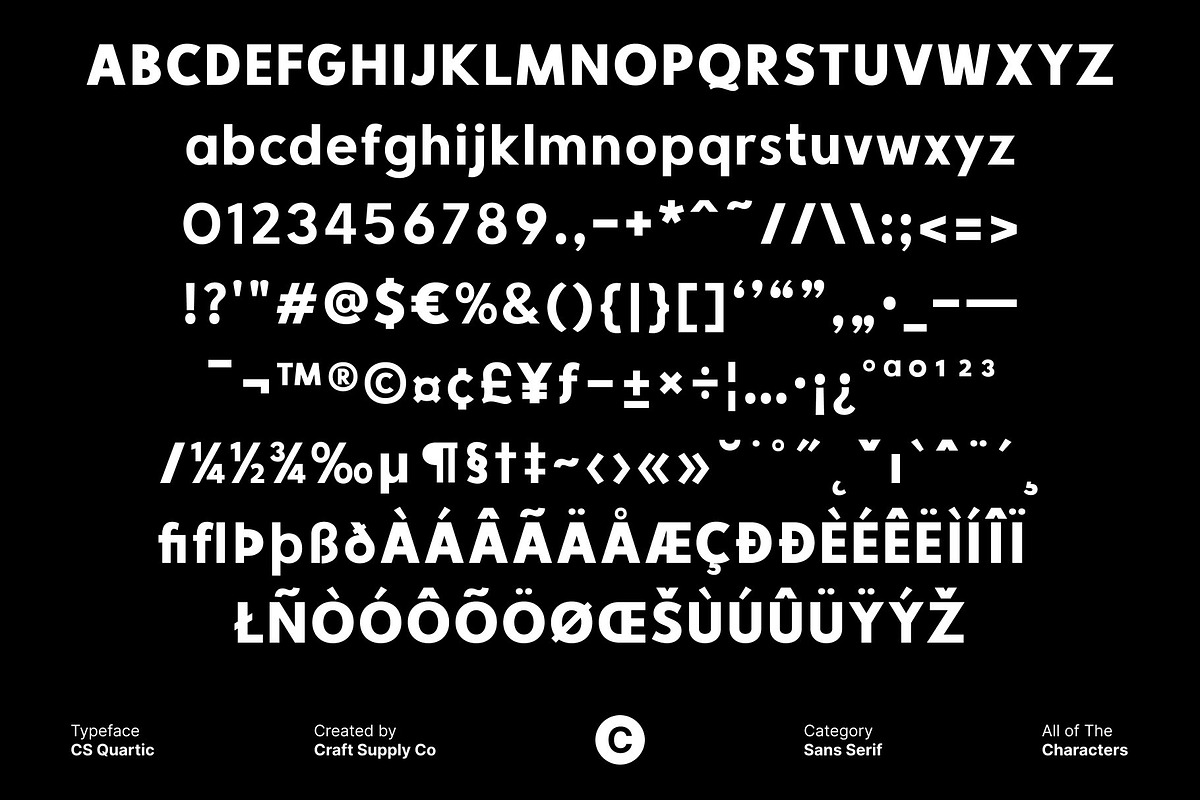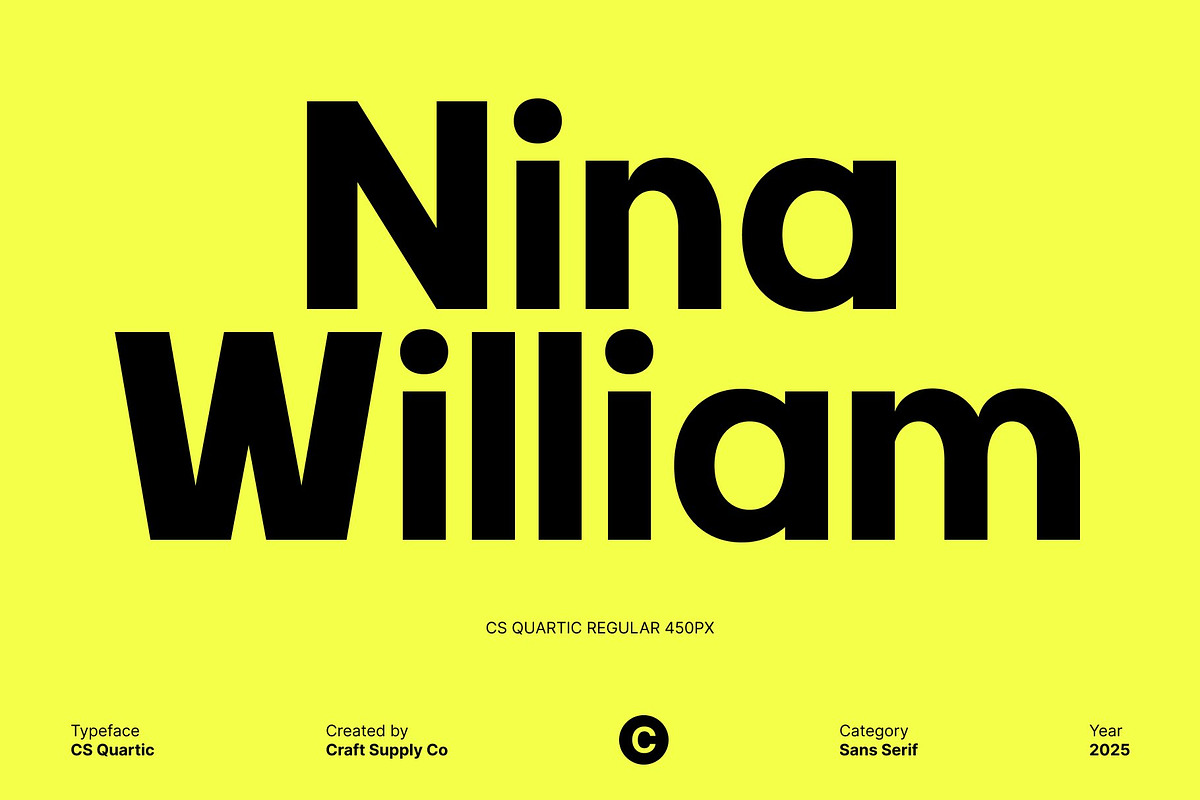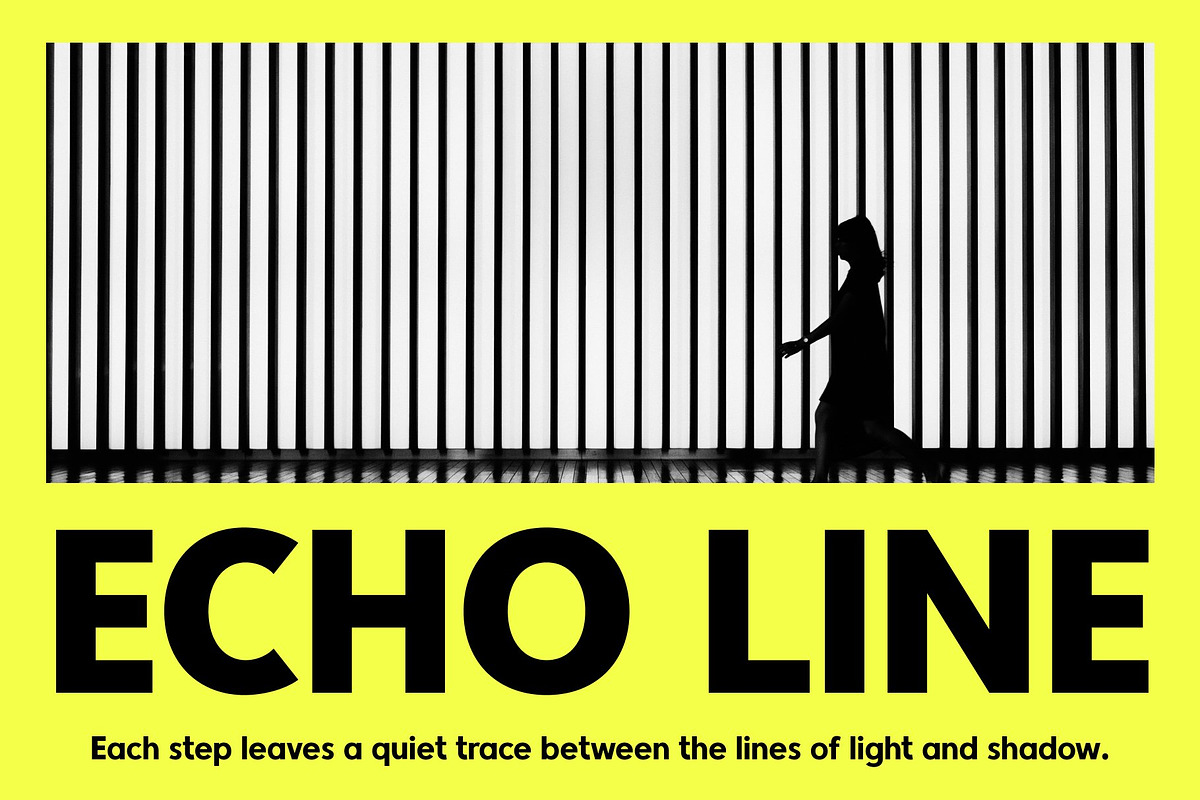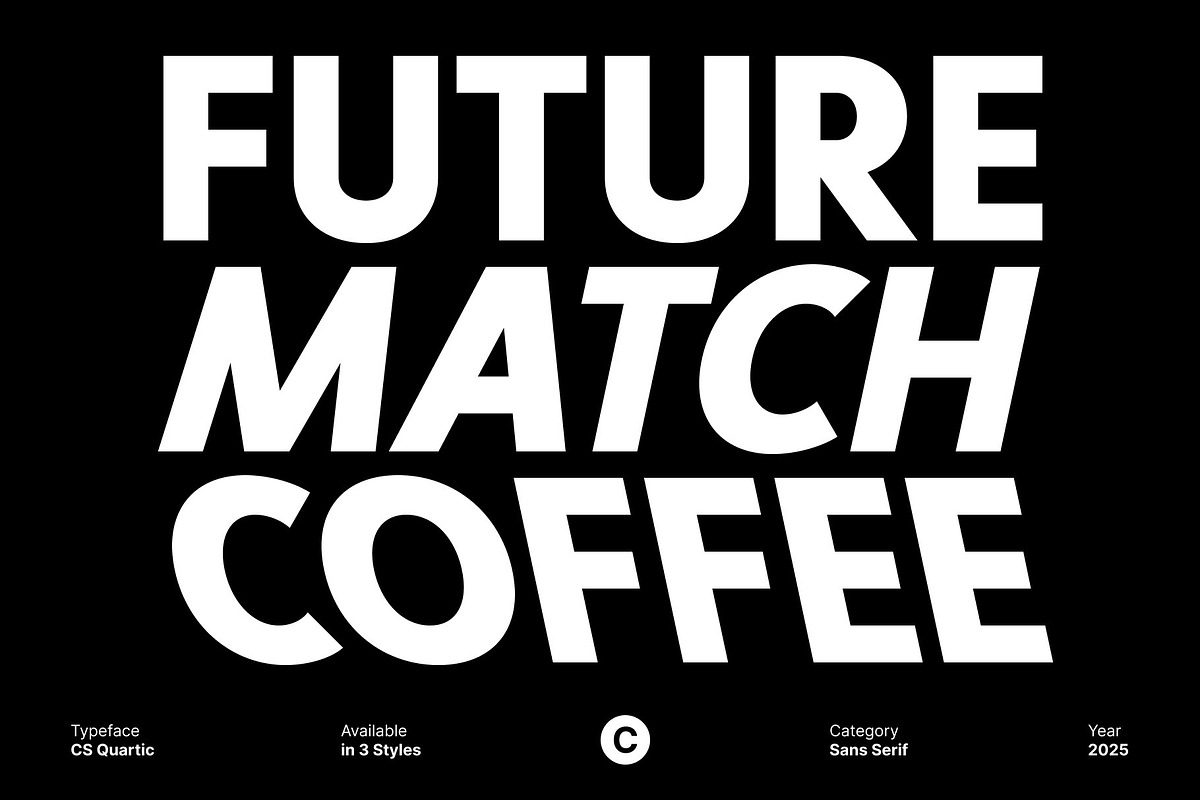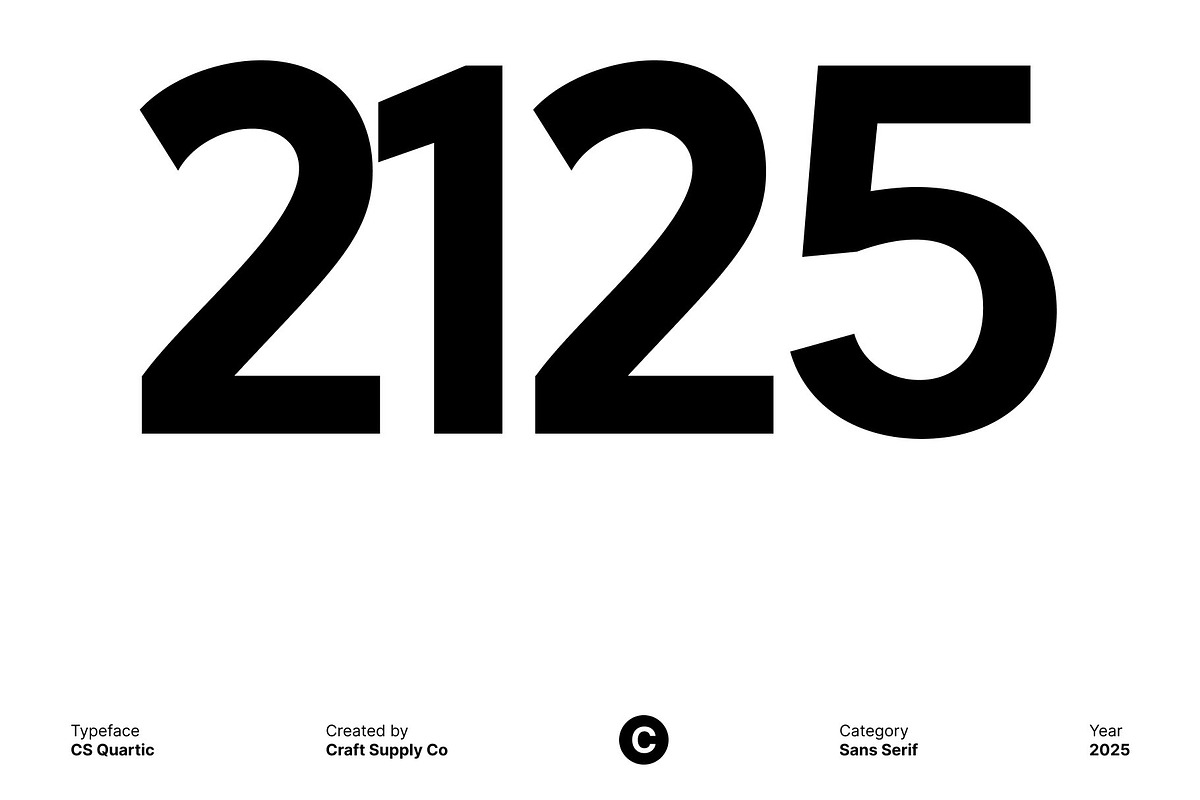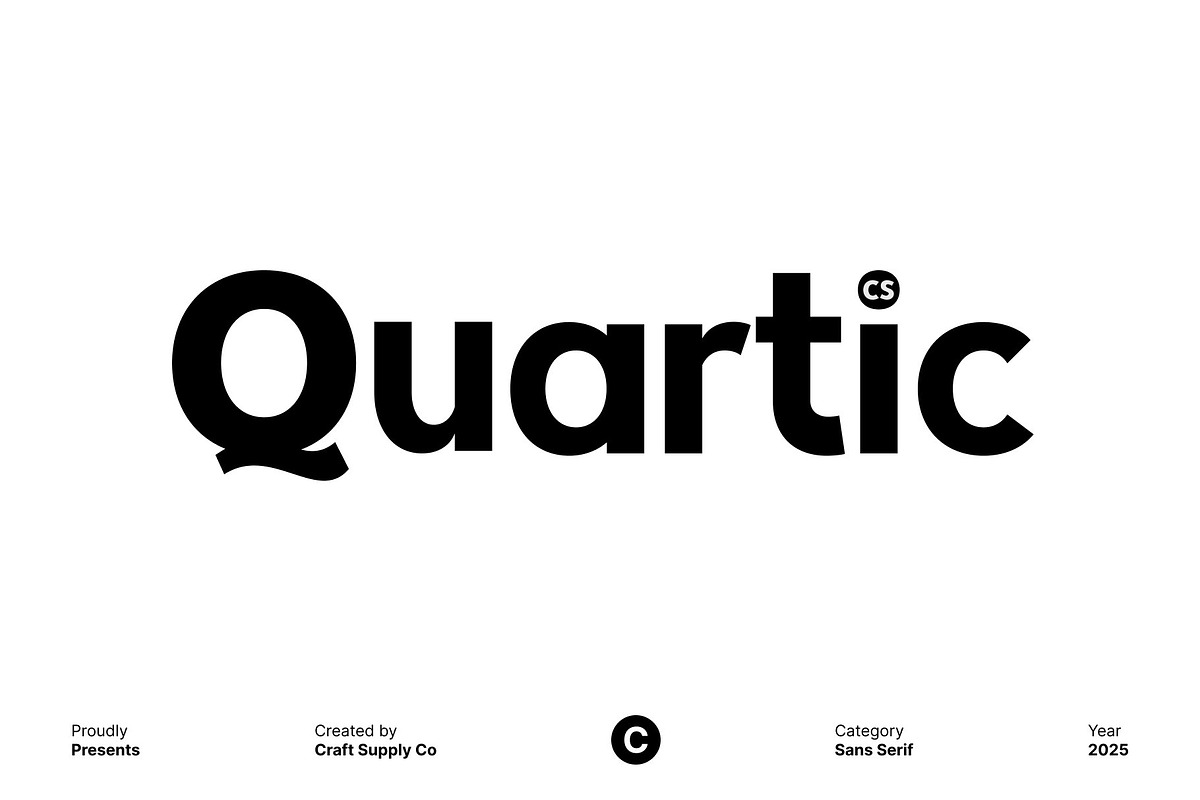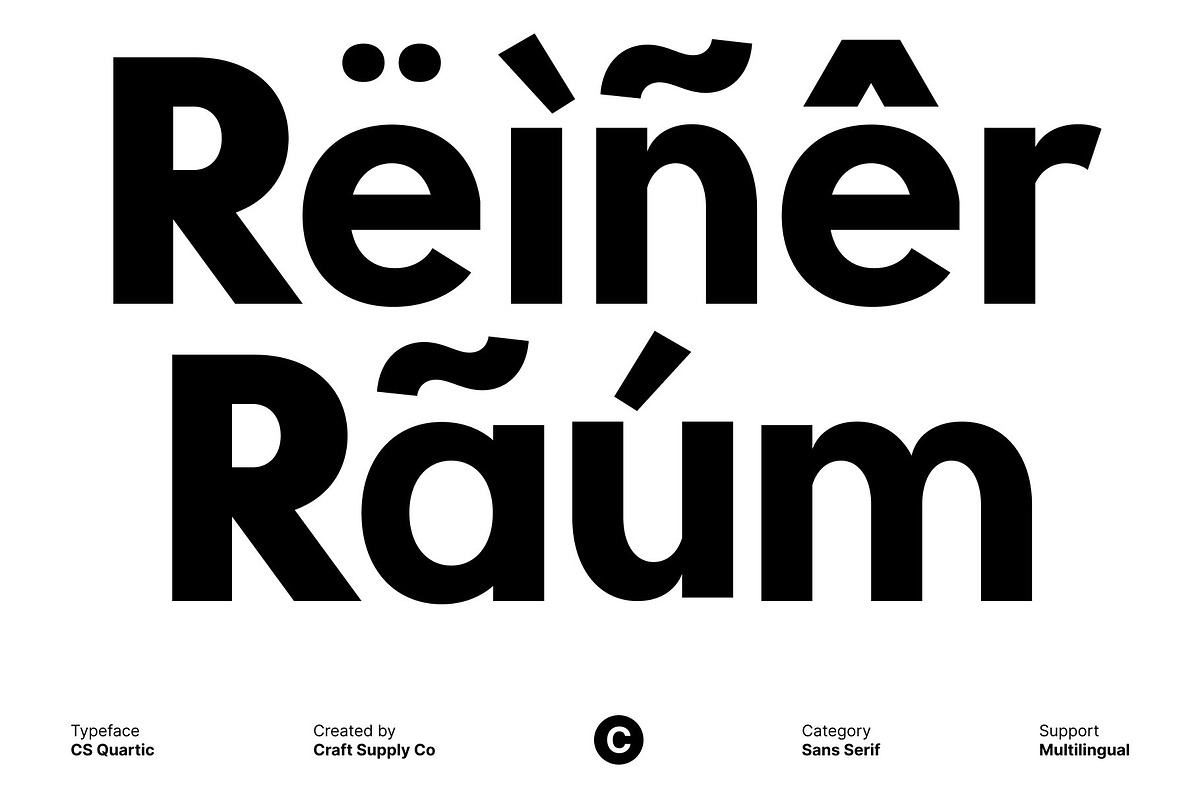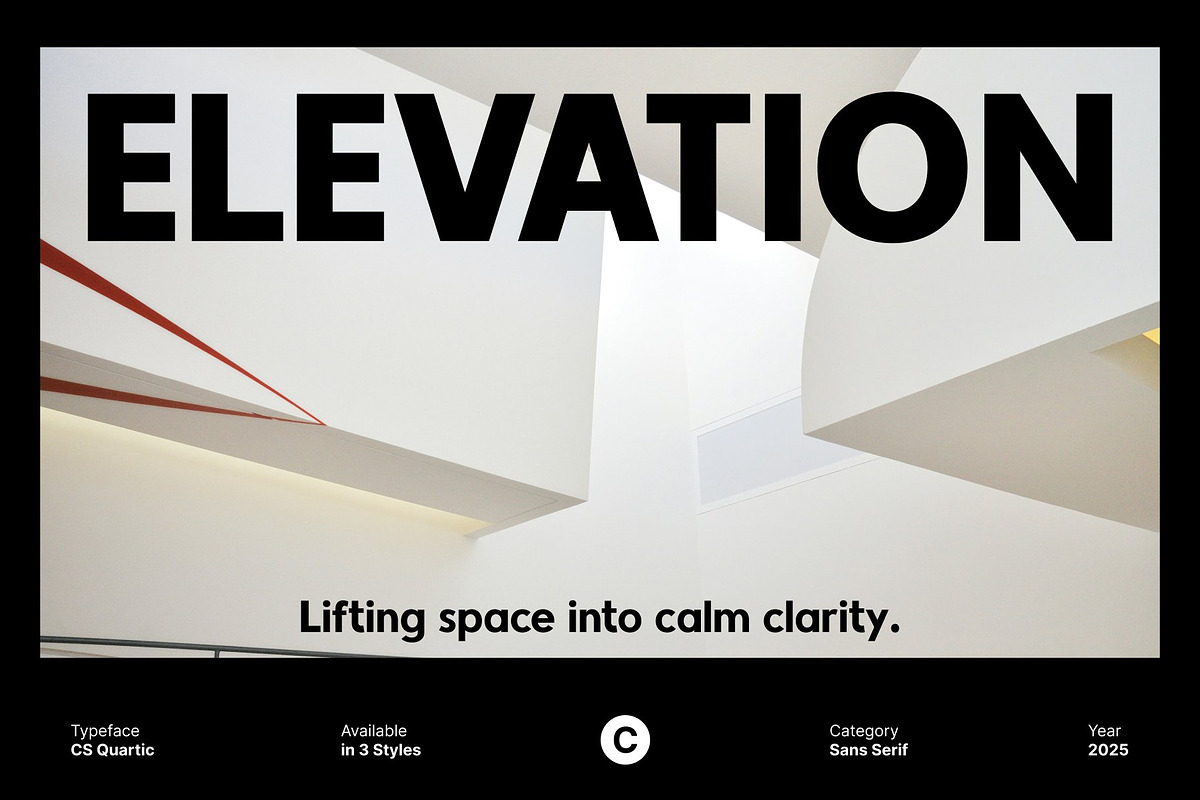
CS Quartic – Bold Sans Serif
CS Quartic – Bold Modern Sans Serif with Unconventional Energy
Strong, Clean Shapes Built for Confident Visual Impact This is a bold sans serif font crafted to deliver clarity, strength, and modern attitude in every character. Its solid construction and smooth geometry project confidence, making it an ideal choice for bold statements and eye-catching layouts.
Modern Edge with a Lively, Unconventional Style Though grounded in modern sans serif principles, this font breaks away with subtle quirks that give it a distinctive edge. Its lively proportions and unexpected details add personality without compromising on readability. This blend of discipline and expressive flair makes it suitable for contemporary projects that need a font with both power and originality.
Perfect for Headlines, Posters, and Bold Branding Highly adaptable, this font shines in display settings where boldness is key. Its strong presence makes it perfect for headlines, posters, event graphics, and impactful branding systems. Ideal for marketing materials, social media visuals, and high-visibility campaigns.
A Typeface Made for Designers Who Dare to Stand Out This font is designed for creatives who want their work to feel modern, confident, and a bit unconventional. Its bold sans serif structure anchors layouts with strength, while its energetic nuances bring life and character. This font ensures every message is delivered with force, clarity, and unmistakable style.